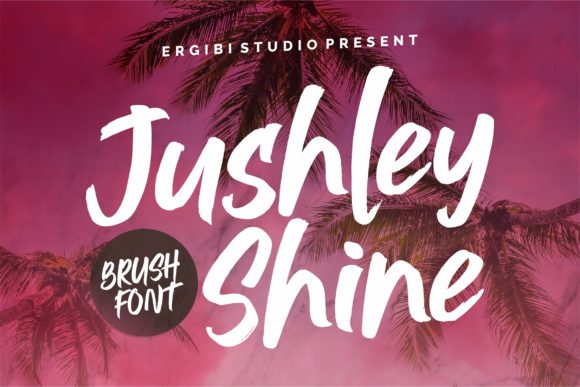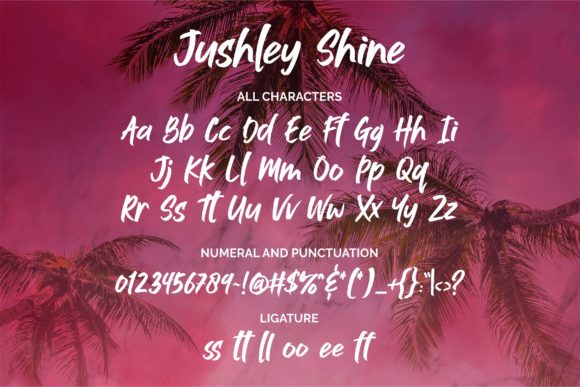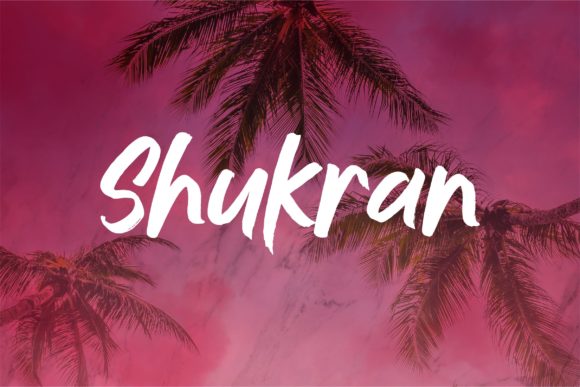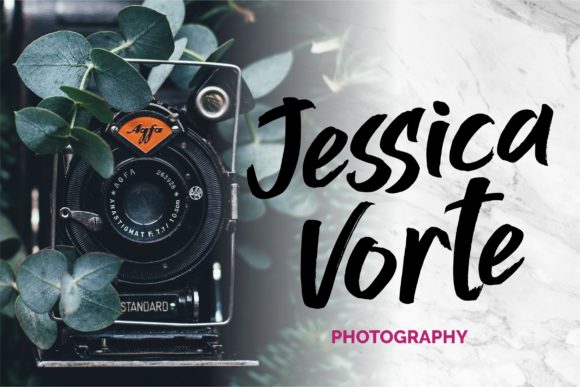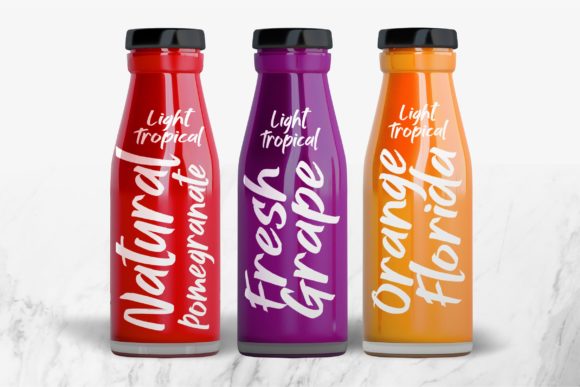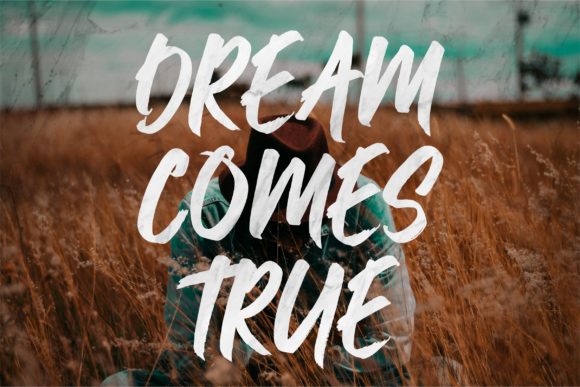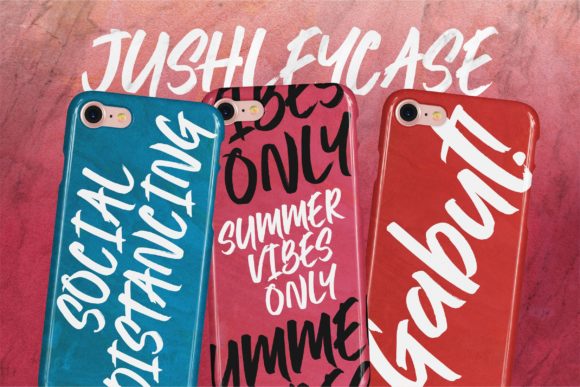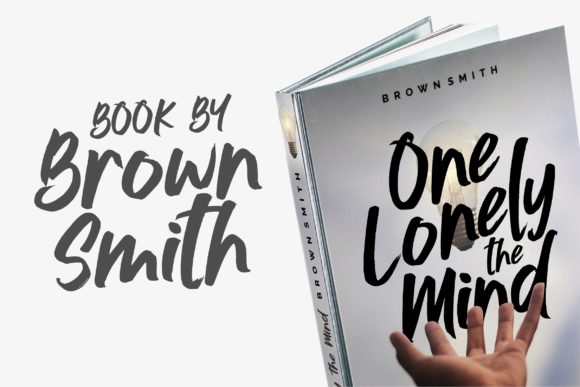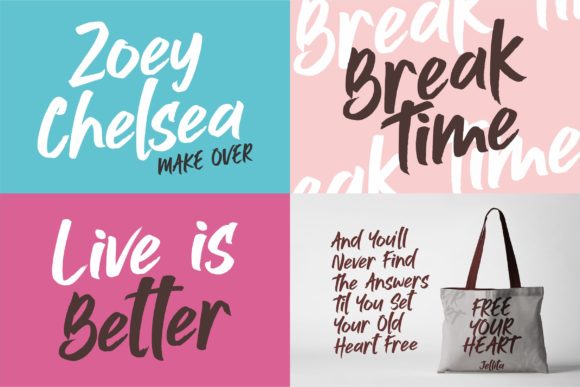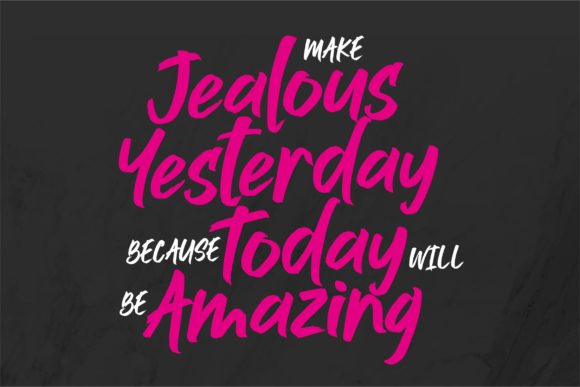
Jushley Shine Font
About Jushley Shine Font
Jushley Shine is an unique and elegant handwritten font, designed with the help of an outstanding brush pen. It will look spectacular in any context, whether it’s being used on busy backgrounds or as a standalone headline!